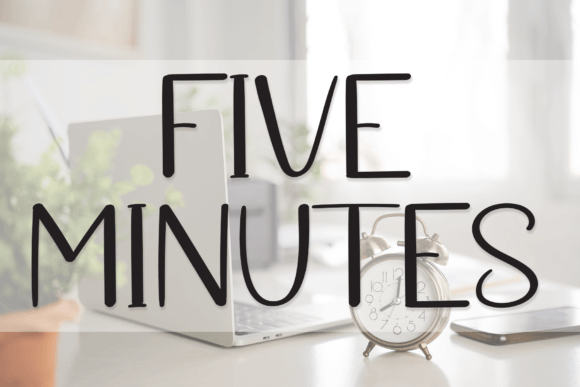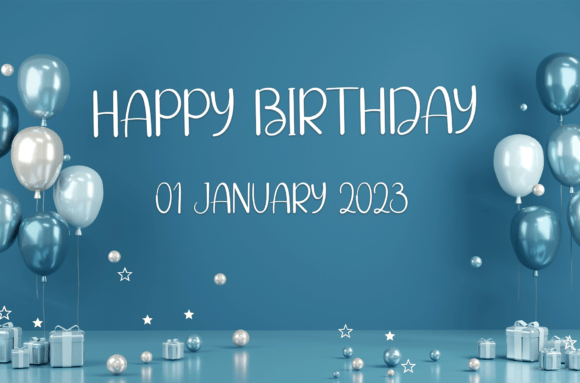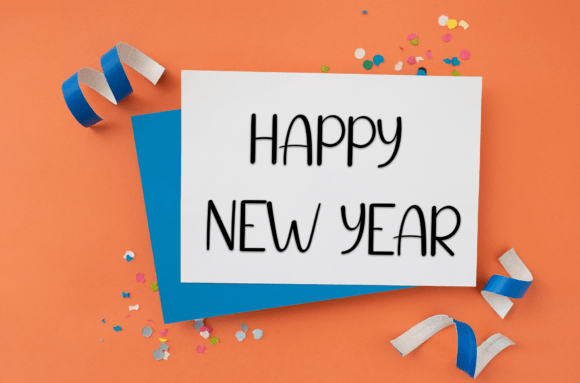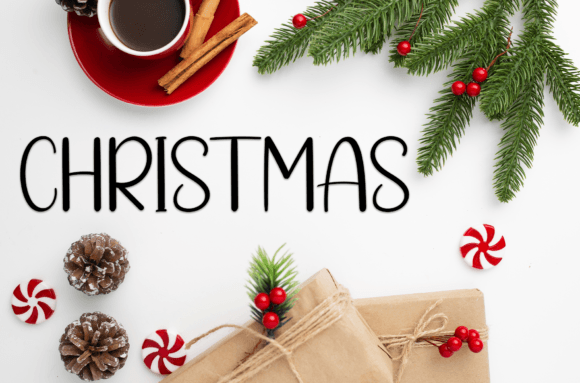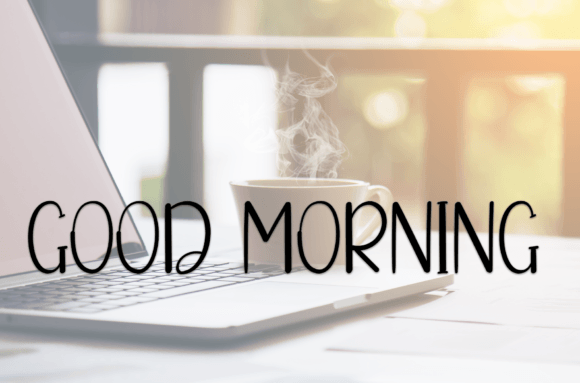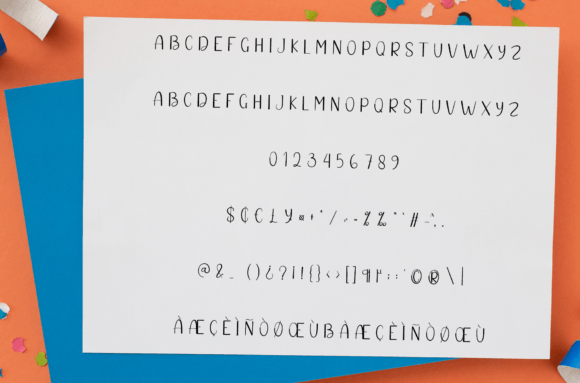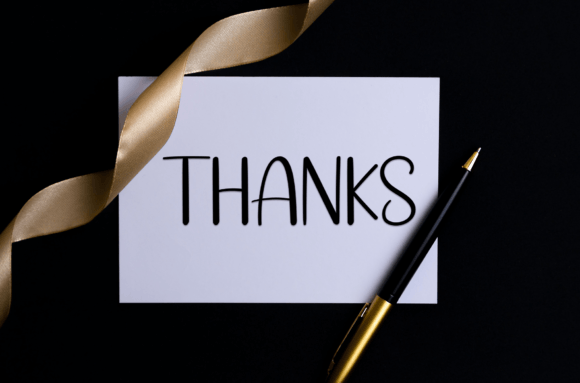
Five Minutes Font
Bring Warmth to Your Designs with Five Minutes Handwritten Font
The Five Minutes Handwritten Font is a cheerful and inviting script font designed to bring joy, personality, and friendliness to any creative project. With its playful curves and handwritten charm, this font offers a relaxed and heartwarming feel that makes every message feel personal and memorable.
Whether you’re crafting something romantic, festive, or casual, Five Minutes adds just the right amount of charm.
Perfect for Invitations, Greeting Cards, and Craft Projects
This font shines in projects that need a gentle, handmade touch. Use it for wedding invitations, birthday cards, baby shower printables, and scrapbooking. Additionally, it’s ideal for custom gifts, Etsy product descriptions, logo design, and product packaging for lifestyle brands.
Its friendly character also makes it a wonderful choice for social media graphics, printable quotes, and blog headers.
A Handwritten Script That’s Casual Yet Stylish
The Five Minutes Handwritten Font features soft strokes and well-balanced letterforms that feel like a personal note written just for the recipient. It captures the emotion and spontaneity of real handwriting, making it a great font for connecting with your audience on a human level.
Even with its fun and relaxed tone, the font remains easy to read across various sizes. That makes it a reliable option for both headings and smaller supporting text.
Designed to Perform Across Print and Digital Formats
Whether you’re designing for print or digital, Five Minutes retains its clarity and playful spirit. It works beautifully in high-resolution printable files, mug designs, stickers, labels, and even on screen-based platforms like websites and social media posts.
To create visual balance, pair this handwritten font with a minimal serif or sans-serif typeface. This allows Five Minutes to stand out as the focal point while keeping your layout clean and polished.
Why Designers Love Five Minutes Handwritten Font
• Sweet and friendly handwritten script
• Ideal for cards, invitations, product packaging, and more
• Smooth, legible strokes with a casual elegance
• Versatile across both print and web platforms
Add a Personal and Joyful Touch to Every Design
In summary, the Five Minutes Handwritten Font is a versatile and lovable script that enhances your work with warmth and creativity. Whether you’re building a brand, designing a heartfelt invitation, or just having fun with a craft project, this font helps express joy in every letter.
If you’re searching for a handwritten font that’s both charming and practical, Five Minutes is the perfect choice to add personality and heart to your designs.